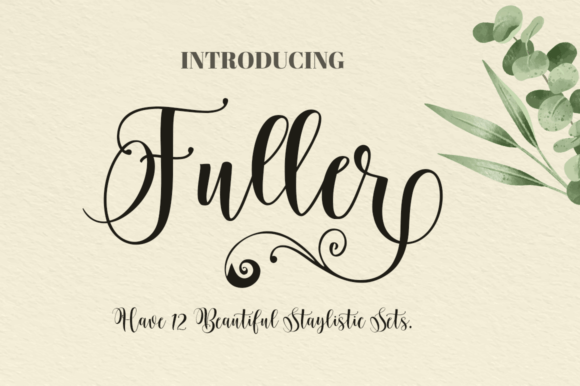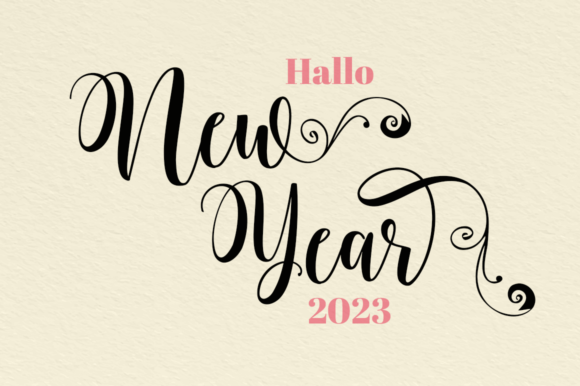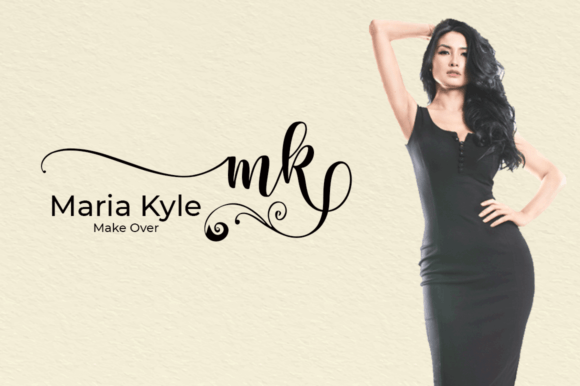
Add Elegant Swirls with Fuller Font
The Fuller font is an elegant script font designed to add a sophisticated and swirly touch to your creative projects. Featuring many extra swirly characters, Fuller brings an enhanced sense of elegance and flourish to any design, making it perfect for weddings, holidays, branding, and crafts.
Perfect for Weddings, Holidays, and Creative Crafts
The Fuller font shines across a wide range of applications including wedding invitations, Christmas designs, logos, branding, lettering, crafting, stickers, sublimation projects, SVG design, Cricut projects, Procreate designs, and much more. Its graceful swirls make every project stand out with charm and style.
Despite its decorative swirls, the Fuller font maintains excellent readability across various sizes. Whether used for bold titles or delicate details, it balances artistic elegance with clarity, making it versatile for many creative projects.
Elevate Your Designs with Fuller’s Elegant Flourishes